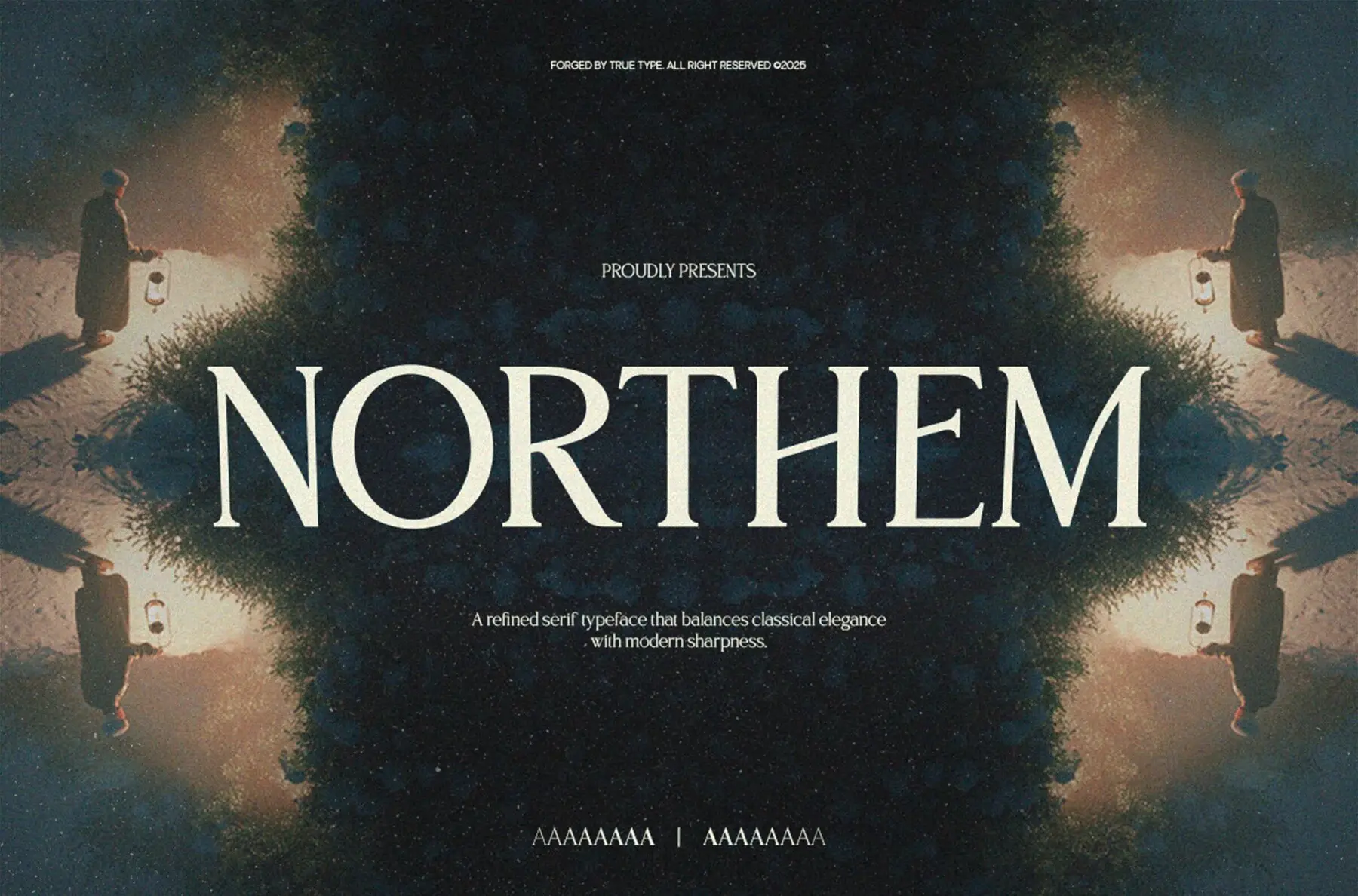
TRT Northem Font
TRT Northem is an elegant serif font family that embodies sophistication and timeless beauty. Its refined proportions and smooth contrast bridge classic charm with modern functionality, making it a valuable asset for various design projects. This font is designed with versatility in mind, performing gracefully in editorial layouts, branding systems, book covers, and digital platforms. Its calm character and meticulously tuned details provide both readability and elegance, establishing a strong yet graceful typographic presence. Featuring a harmonious balance between structure and softness, TRT Northem is well-suited for both display and text sizes. Whether crafting a luxury brand, a high-end magazine, or a professional presentation, this font delivers clarity and poise that enhances your visual storytelling.TRT Northem: A Sophisticated Serif Font Family